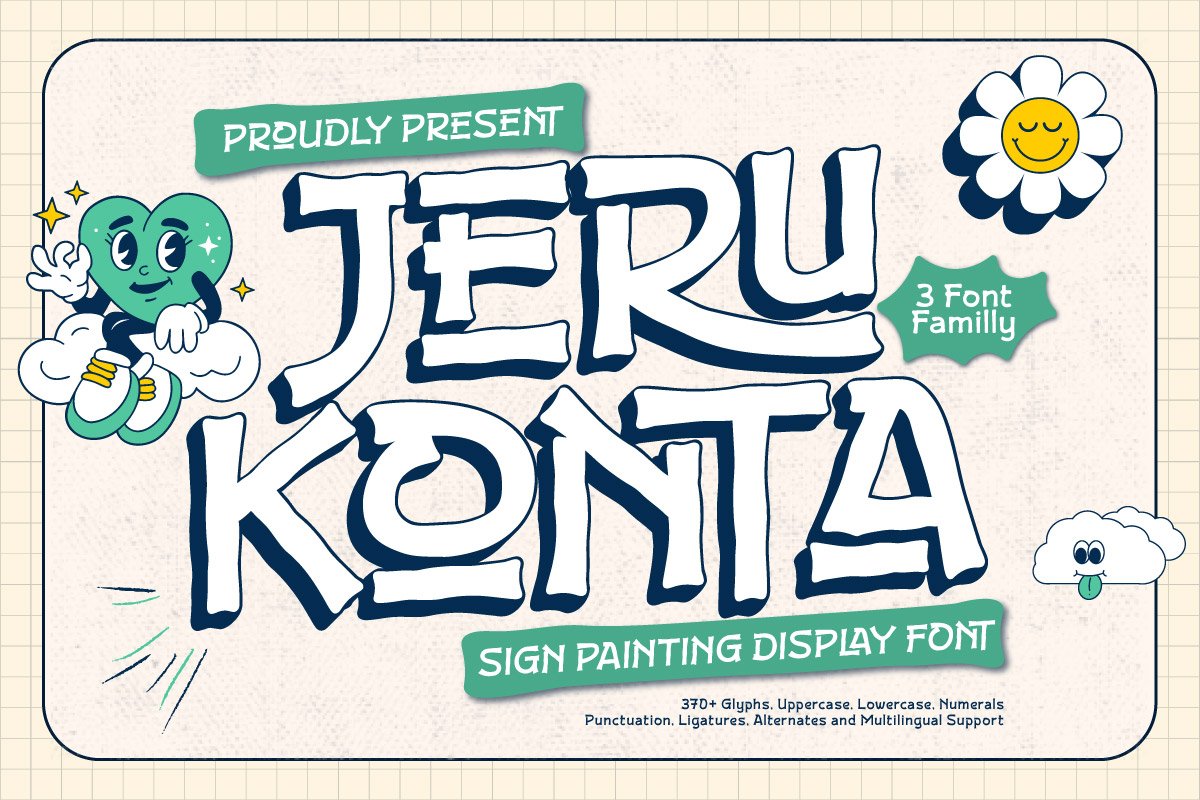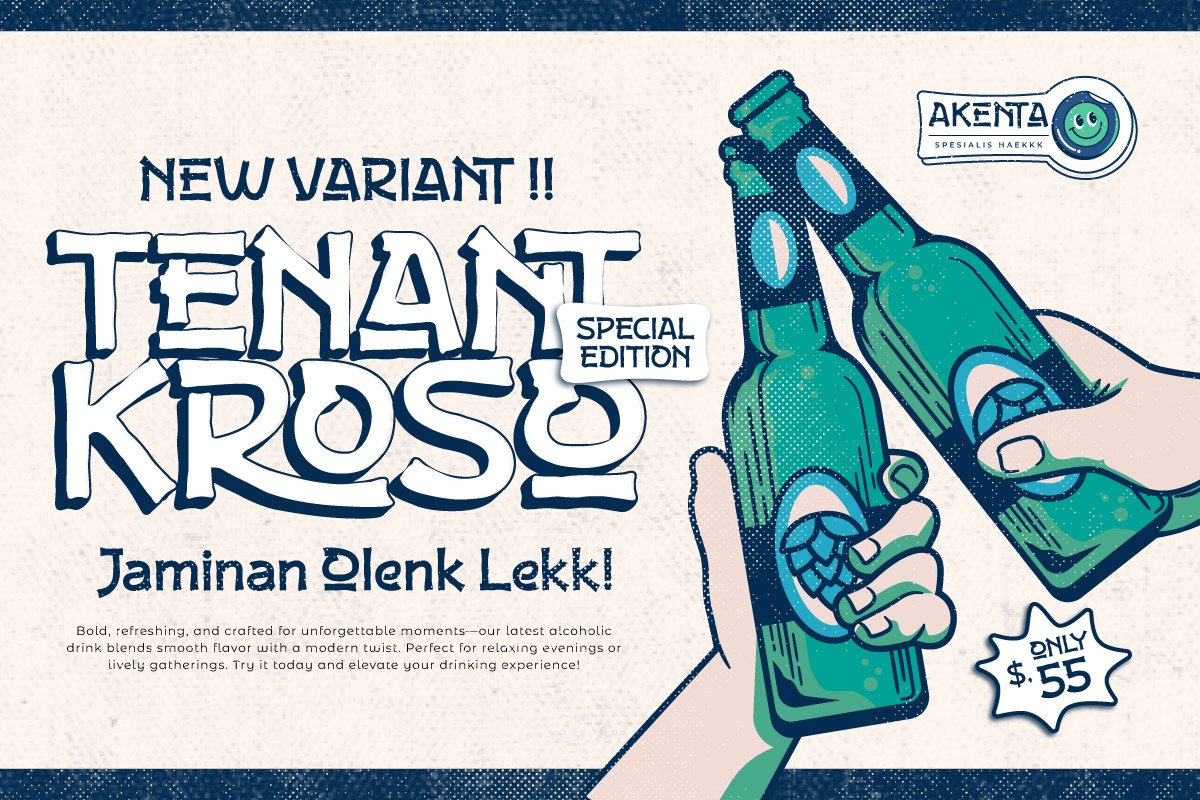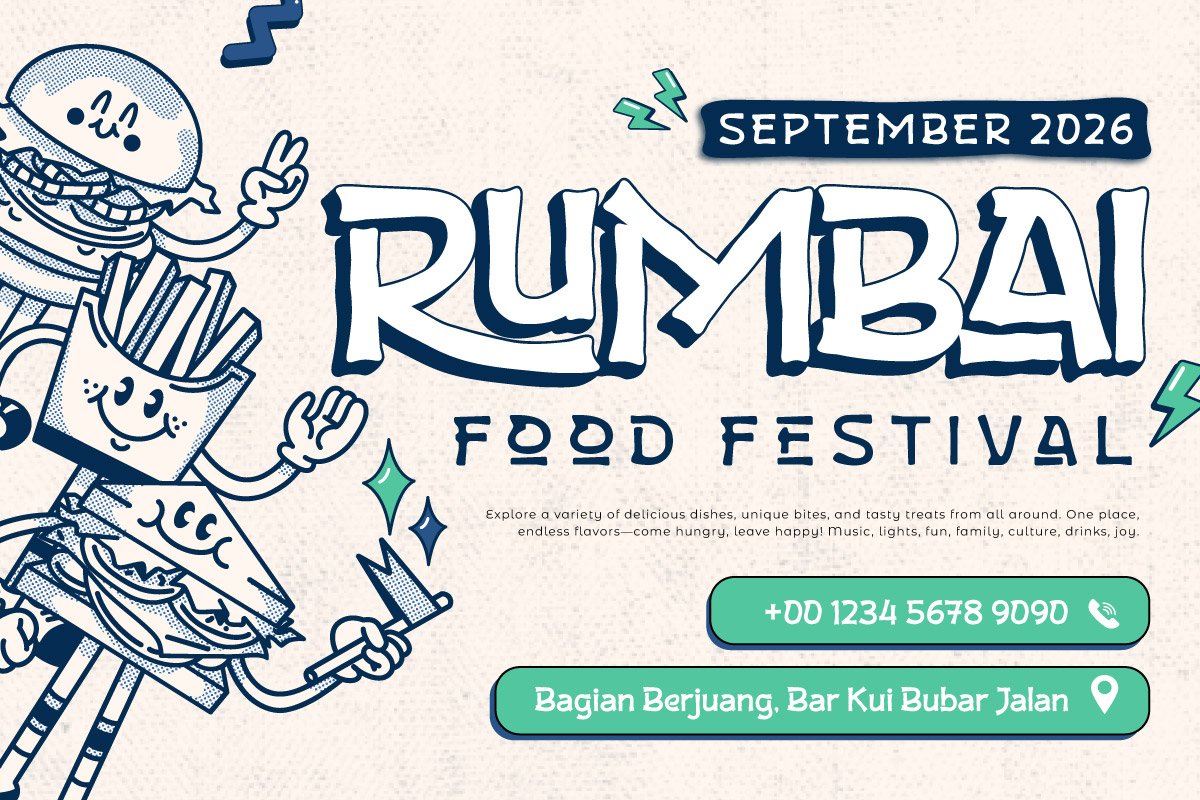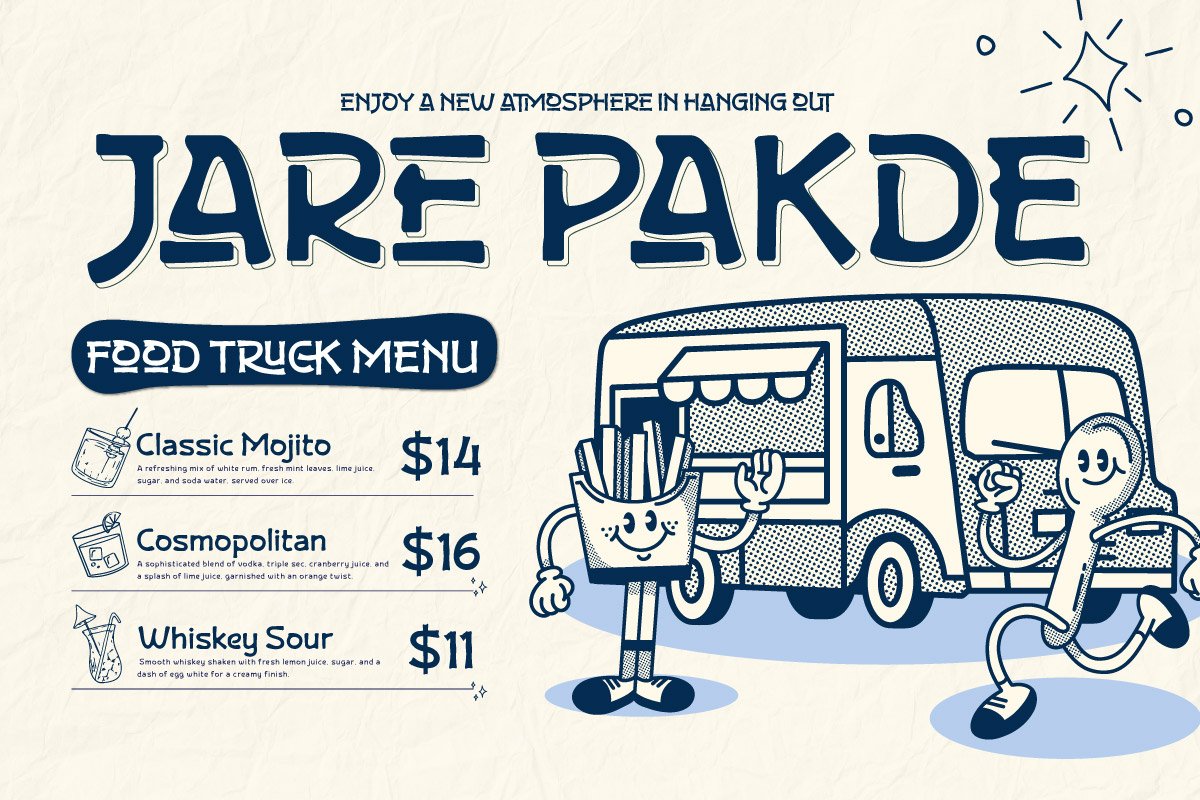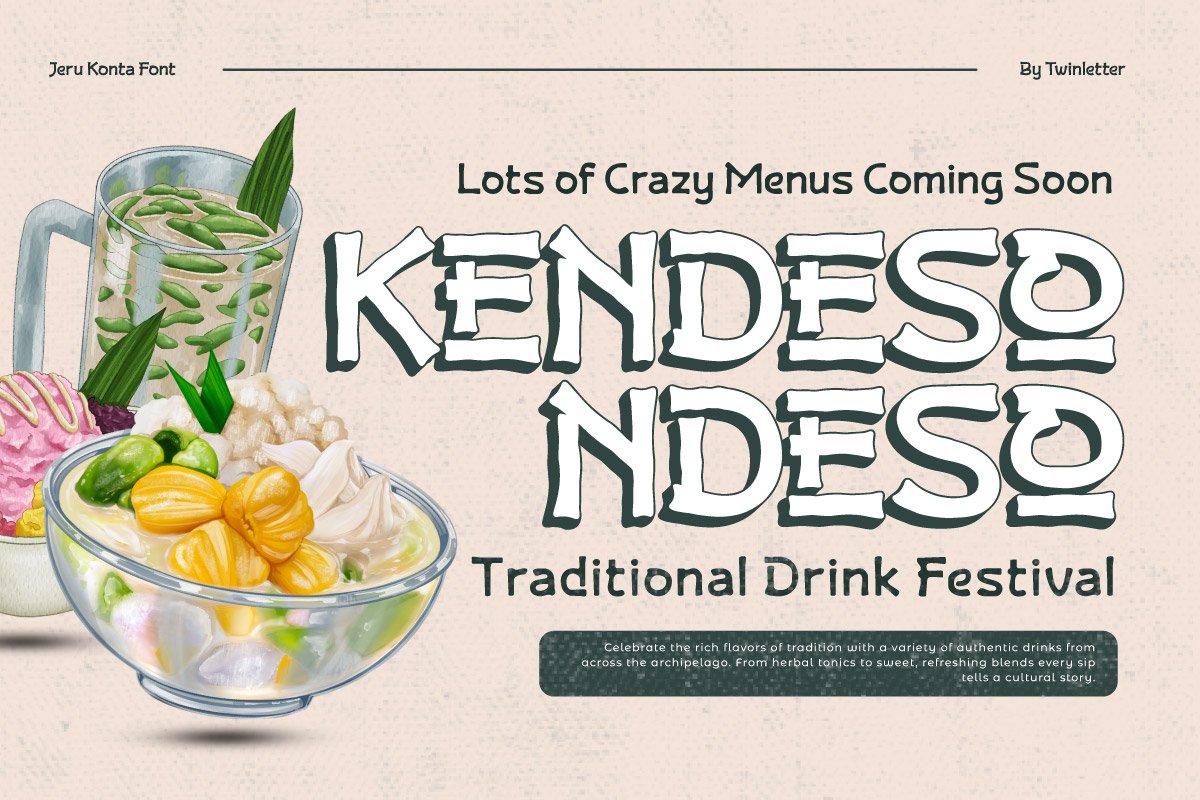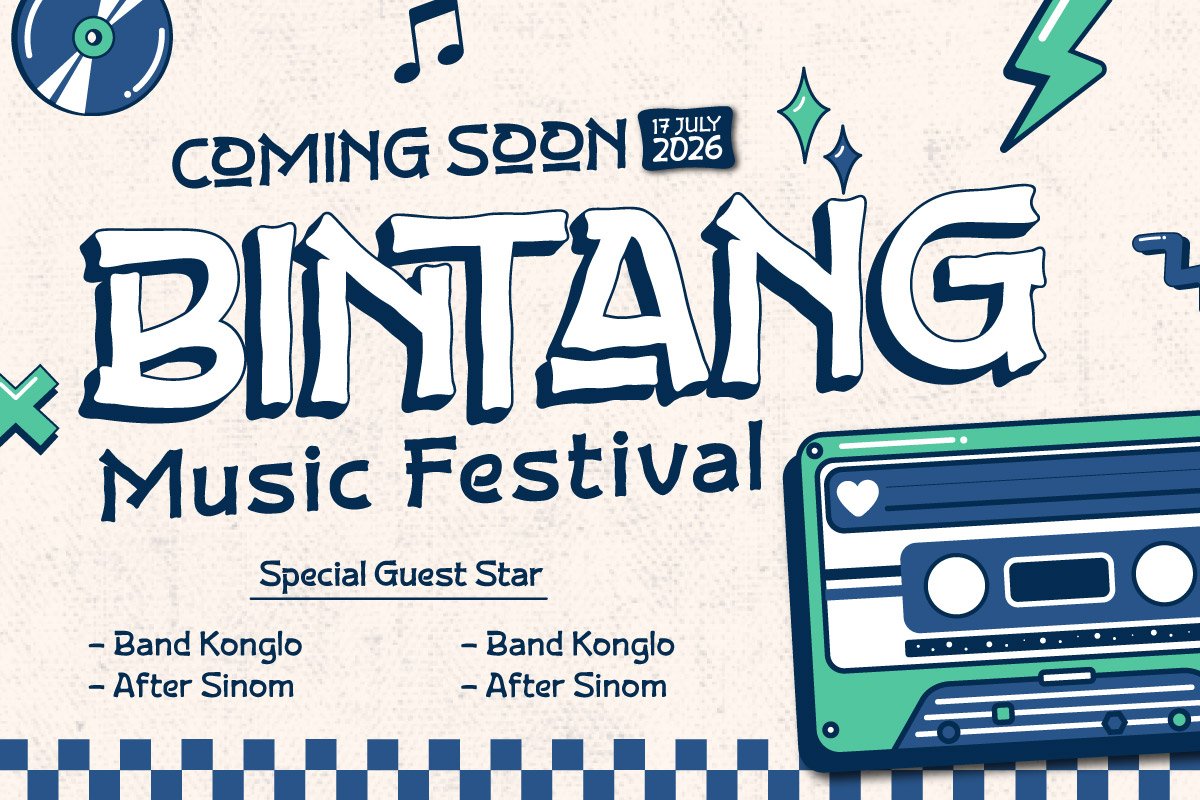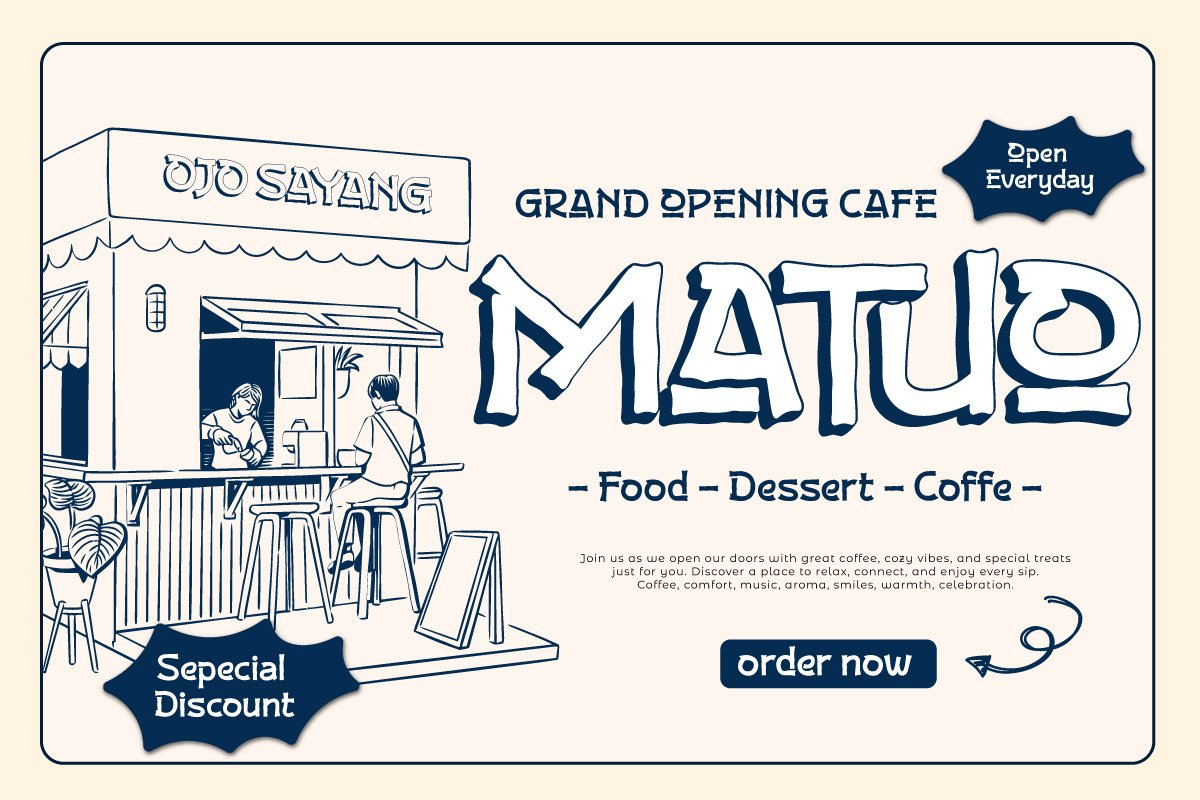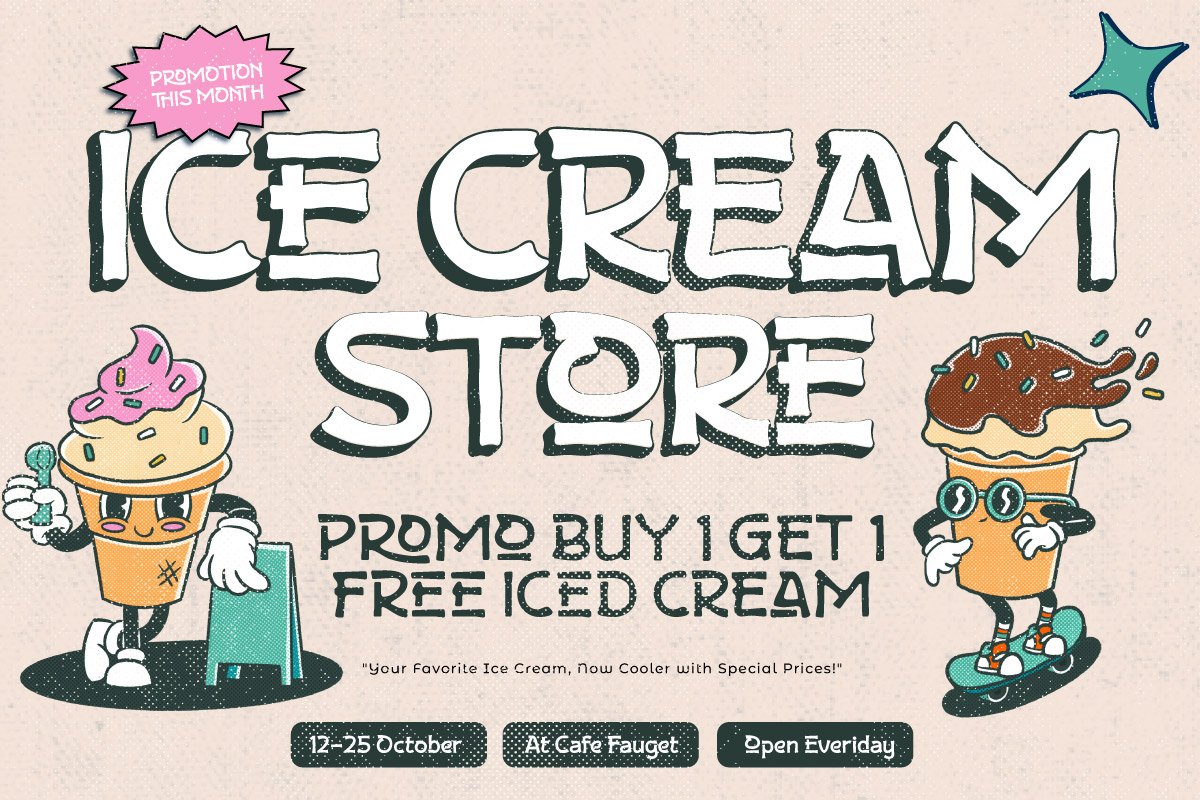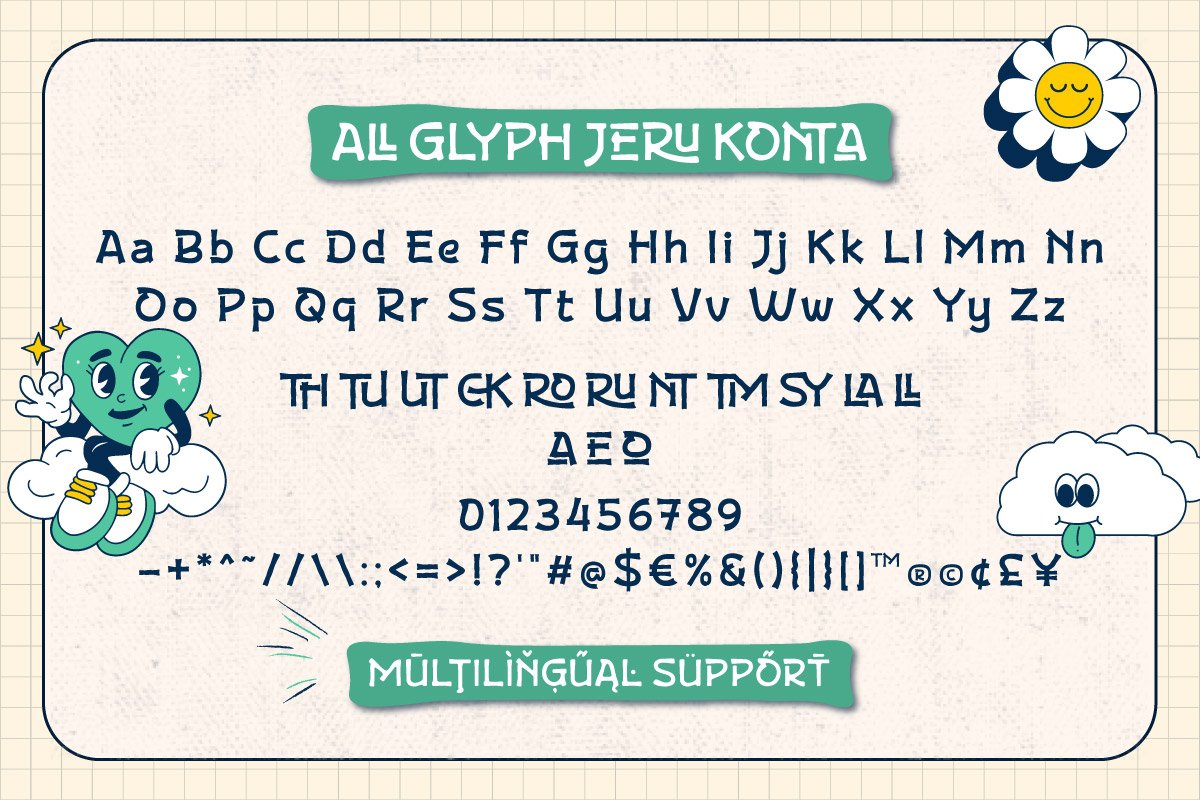
Jeru Konta – Sign Painting Display Font
Jeru Konta is a charismatic sign painting display font inspired by classic hand-lettered signage and vintage storefront aesthetics. It comes in Regular, Blury, and Shadow styles, offering flexibility and layered depth for your creative projects.
The Regular version delivers clean and confident strokes, while the Blury style adds a touch of atmospheric softness, perfect for creating dreamy or nostalgic effects. The Shadow style enhances dimension, giving your text a standout presence that’s perfect for posters, product labels, packaging, menus, or storefronts.
With its retro spirit and handcrafted charm, Jeru Konta brings warmth, personality, and a professional touch to both modern and vintage-themed designs.